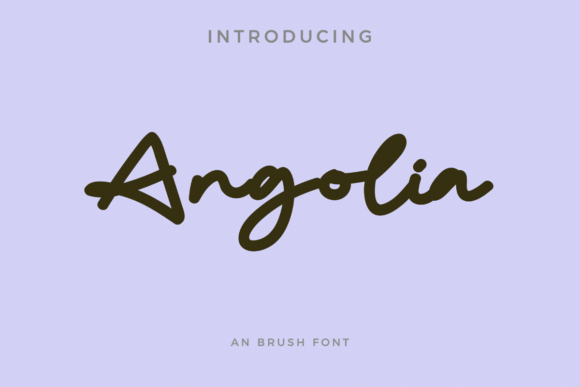
Discover the Enchanting Angolia Font: A Unique Handwritten Script for Your Creative Projects
Are you looking for a font that can add a touch of personality and whimsy to your creative projects? Look no further than Angolia, a one-of-a-kind handwritten script font that is sure to captivate your audience. With its hand-lettered touch, Angolia crafts a beautiful blend of elegance, playfulness, and warmth, making it perfect for a wide range of design applications.
The Charm of Angolia
Angolia is more than just a font – it’s an experience. Its enchanting, hand-written style evokes a sense of nostalgia and warmth, reminiscent of handwritten letters and personal messages. The font’s unique character is perfect for adding a touch of personality to your designs, whether you’re creating a logo, branding materials, or marketing collateral.
One of the standout features of Angolia is its exquisite flow. The font’s letters seem to dance across the page, creating a beautiful, fluid motion that draws the reader in. This makes it perfect for use in creative projects where you want to make a lasting impression, such as in advertising, packaging, or editorial design.
The Benefits of Using Angolia
So why choose Angolia for your creative projects? Here are just a few benefits of using this unique font:
- Personal touch: Angolia’s hand-lettered style gives your designs a uniquely personal touch that sets them apart from the crowd.
- Elegance and whimsy: The font’s beautiful blend of elegance and playfulness makes it perfect for a wide range of design applications, from luxury brands to playful marketing campaigns.
- Warmth and approachability: Angolia’s warm and inviting style makes it perfect for creating designs that feel friendly and approachable.
- Flexibility: The font’s versatility makes it suitable for use in a wide range of design applications, from digital media to print materials.
Using Angolia in Your Creative Projects
Angolia is a versatile font that can be used in a wide range of creative projects. Here are a few ideas to get you started:
- Branding and logos: Use Angolia to create a unique and memorable logo that sets your brand apart from the competition.
- Marketing and advertising: The font’s playful and whimsical style makes it perfect for use in marketing campaigns and advertising materials.
- Editorial design: Angolia’s elegant and refined style makes it perfect for use in editorial design, such as in magazines, newspapers, and books.
- Packaging: The font’s unique character makes it perfect for use in packaging design, where you want to stand out on store shelves.
Tips for Getting the Most Out of Angolia
Here are a few tips for getting the most out of Angolia in your creative projects:
- Experiment with different sizes: Angolia looks great in a wide range of sizes, from large headings to smaller body text.
- Play with color: The font’s unique character looks great in a wide range of colors, from bold and bright to more muted and subtle.
- Mix and match: Try pairing Angolia with other fonts to create a unique and interesting visual effect.
- Keep it simple: Don’t be afraid to keep things simple and use Angolia on its own – the font’s unique character can speak for itself.
Angolia is a truly unique and enchanting font that is sure to add a touch of personality and whimsy to your creative projects. With its hand-lettered touch, exquisite flow, and beautiful blend of elegance and playfulness, Angolia is the perfect choice for designers who want to create something truly special. Whether you’re working on a branding project, marketing campaign, or editorial design, Angolia is sure to make a lasting impression.